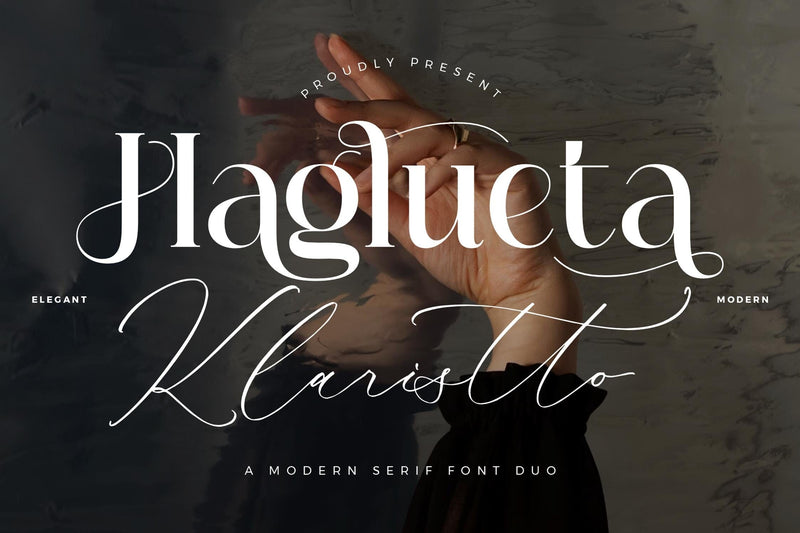
Haglueta Klaristto Font Duo
Proudly present Haglueta Klaristto Font Duo , created by Storytype,
A serif and script typeface that has own unique style & modern look.